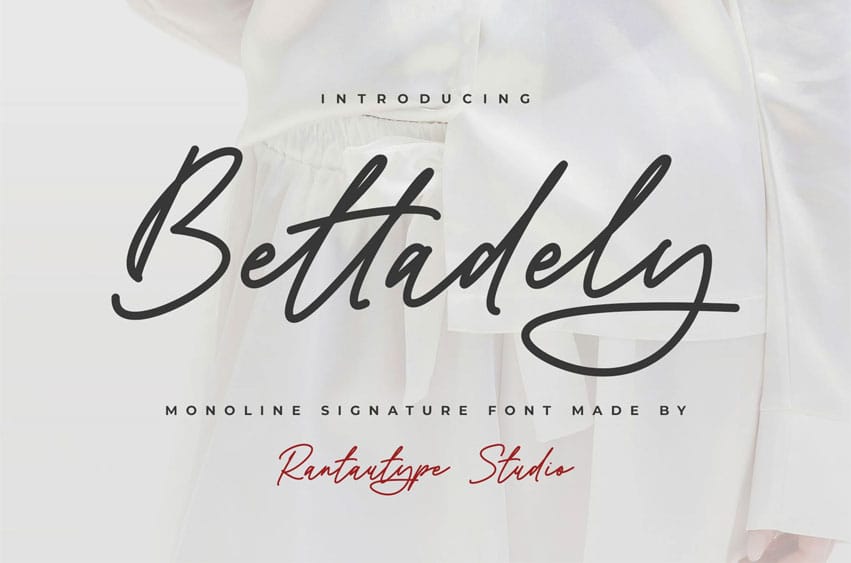
Bettadely Font is a monoline signature font that embraces grace and sophistication. Bettadely comes with a single store with a trendy style to make your design project stand out!
Bettadely is a perfectly choice for any creative endeavor, creating, modern, lifestyle design such as logotype, title, cover, branding, invitations, wedding designs, display and magazine, social media posts, advertisements, printed quotes, product packaging, corporate brand, product designs, labels, photography, watermarks, special events and any other project with elegant touch.